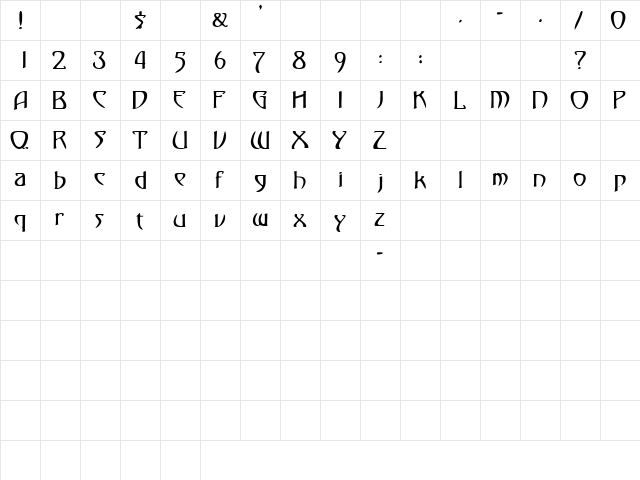
FezSSK Regular
Design Context for FezSSK Typeface
FezSSK is a composed and adaptable typeface that performs quietly and consistently across a wide range of design contexts.